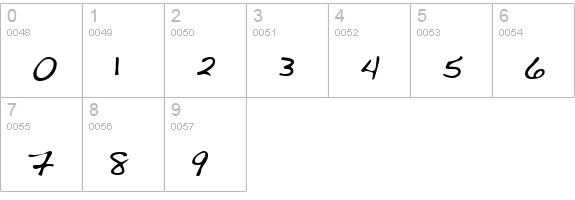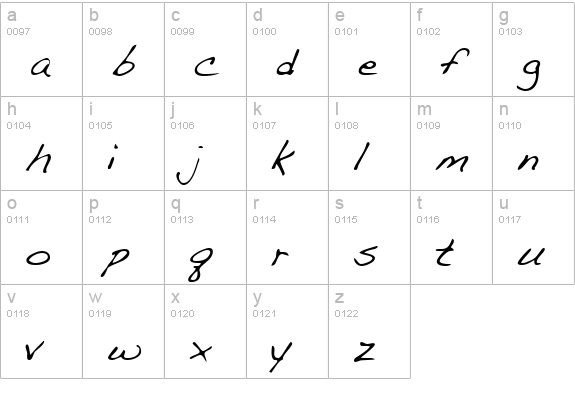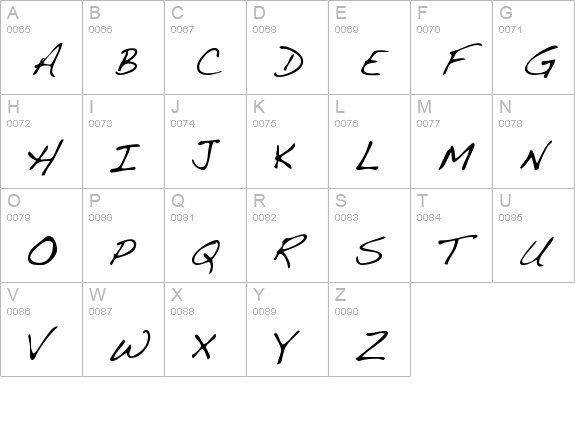
FultonsHand Regular Font Details
FultonsHand Regular is the standard, neutral variant in the FultonsHand typeface family \xE2\x80\x94 well suited to general body text, paragraphs, and standard typographic work.
FultonsHand Regular font exudes elegance and charm with its classic handwritten style. This versatile font is perfect for adding a personal touch to your designs, whether for invitations, greeting cards, logos, or branding. The flowing strokes and delicate curves of FultonsHand Regular bring a sense of sophistication and warmth to any project. Best of all, FultonsHand Regular font is completely free to download at FontsMarket.com. Embrace the beauty and versatility of this stunning font without any cost. Don't miss the opportunity to enhance your designs with the timeless appeal of FultonsHand Regular. Download it today and let your creativity shine!